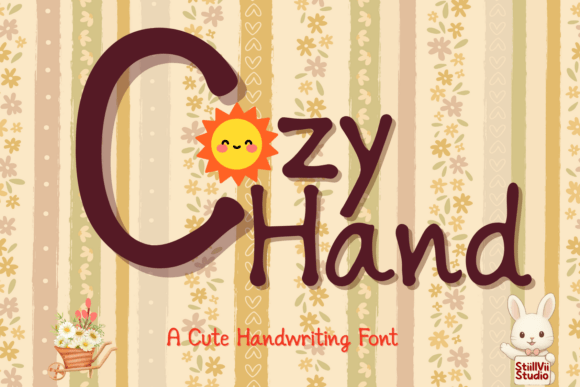
A Font That Feels Like a Warm Hug
Have you ever been working on a design project and suddenly felt the urge to write a heartfelt letter to a loved one? The kind of letter that’s handwritten on a cozy Sunday afternoon, with a warm cup of coffee by your side? For designers and creatives, those moments of genuine connection can be a powerful source of inspiration.
That’s exactly what Cozy Hand Font is all about – capturing the essence of those quiet, comforting moments in our designs. With its soft, rounded edges and relaxed strokes, this cute handwriting font is perfect for adding a personal touch to your projects without sacrificing readability. Whether you’re creating recipe cards, digital planners, or comforting quotes, Cozy Hand Font is a valuable addition to any designer’s toolkit.
Cozy Hand Font Key Features
- Unique Characteristics: Cozy Hand Font features a unique, handwritten style with a warm and inviting feel, making it perfect for creating a cozy and welcoming atmosphere in designs.
- Script and Font Variations: Cozy Hand Font includes multiple script and font variations, allowing designers to create a wide range of styles and effects, from casual to elegant.
Cozy Hand Font Review
I’ve had the chance to work with Cozy Hand Font, and I must say, it’s a delightful addition to any design project. ✨ The hand-drawn style gives it a personal touch that immediately conveys warmth and approachability. It’s perfect for creating a welcoming atmosphere in branding, advertising, or even digital products.
The font is highly customizable, allowing you to adjust the color, size, and even the level of imperfection to suit your design needs. This flexibility makes it an excellent choice for designers who want to add a human touch to their work.
- Unique, hand-drawn style that adds a personal touch to designs
- Highly customizable for a tailored look
- Perfect for branding, advertising, and digital products
- May not be suitable for projects requiring a more formal or professional tone
- Could be challenging to read in certain font sizes or color combinations
- Lack of bold and italic weights may limit its use in certain contexts
- ⚠️ May require additional styling to achieve the desired level of imperfection
Overall, Cozy Hand Font is a wonderful addition to any designer’s toolkit. While it may have some limitations, its unique style and customization options make it a valuable asset for designers looking to create warm and inviting designs.
The Cozy Hand Font is perfect for creating warm and inviting designs, such as:
- Home decor and furniture labels
- Personalized gifts and cards
Q: What is the recommended font size for Cozy Hand Font?
The recommended font size for Cozy Hand Font is between 12-24 points, depending on the design application and intended use. At larger font sizes, the font may appear too ornate or busy, while at smaller font sizes, it may be difficult to read.
Q: Can I customize the Cozy Hand Font?